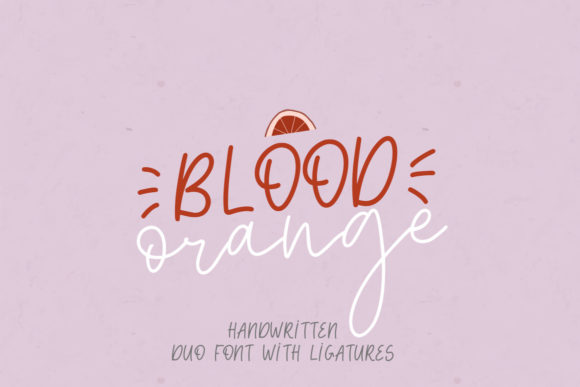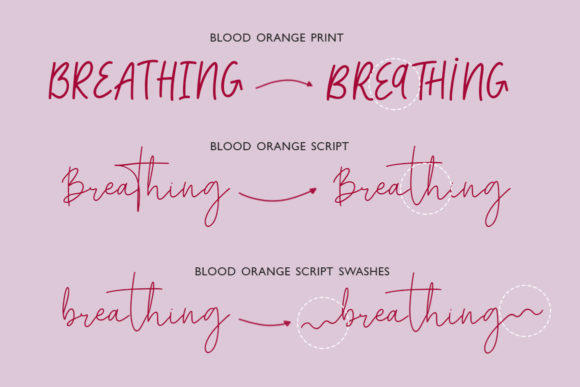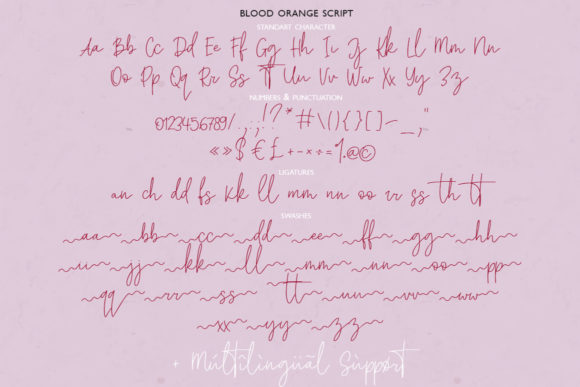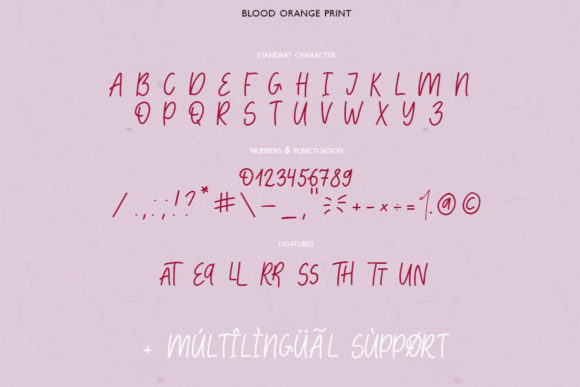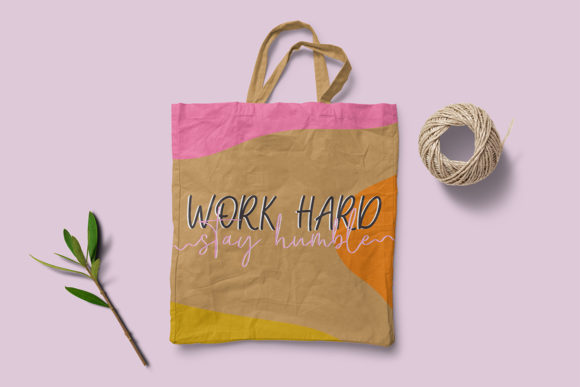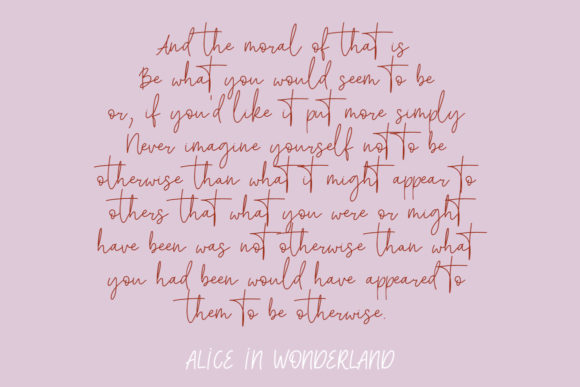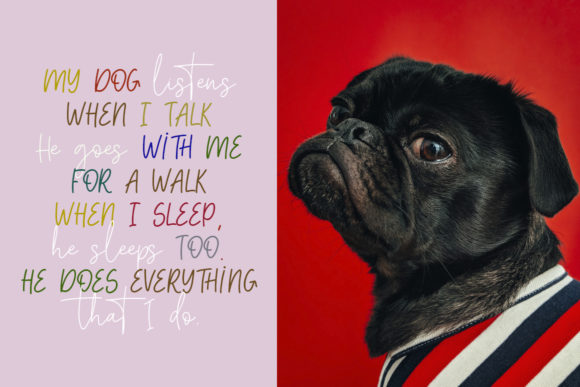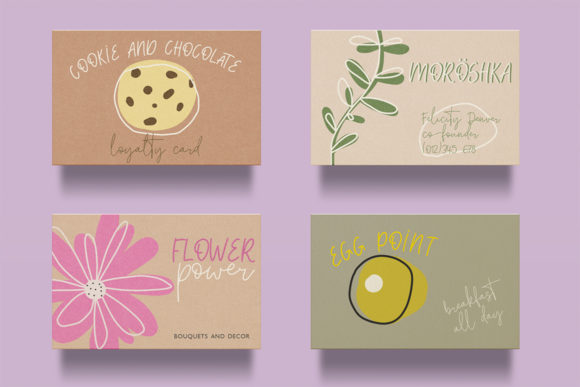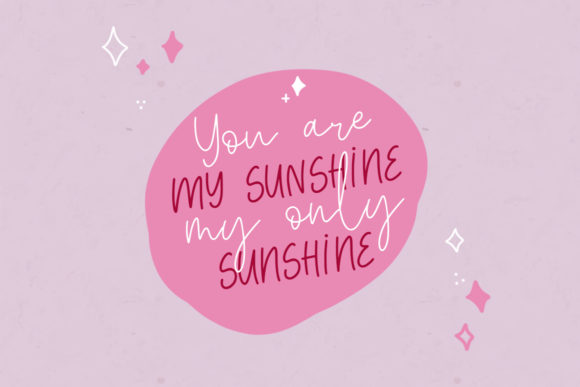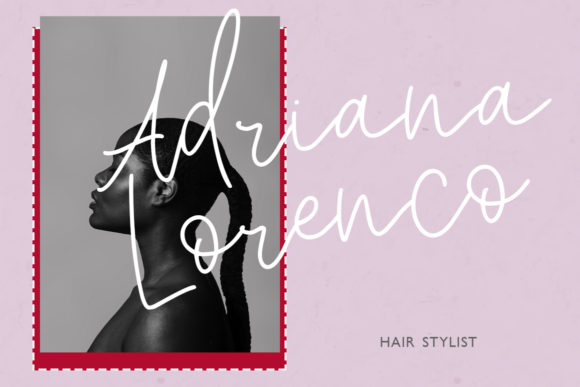
Blood Orange Duo Font
About Blood Orange Duo Font
Blood Orange is a striking handwritten font duo. Both styles can be combined perfectly which gives you the opportunity to create multiple unique designs in an instant. Add it confidently to your projects, and you will love the results.